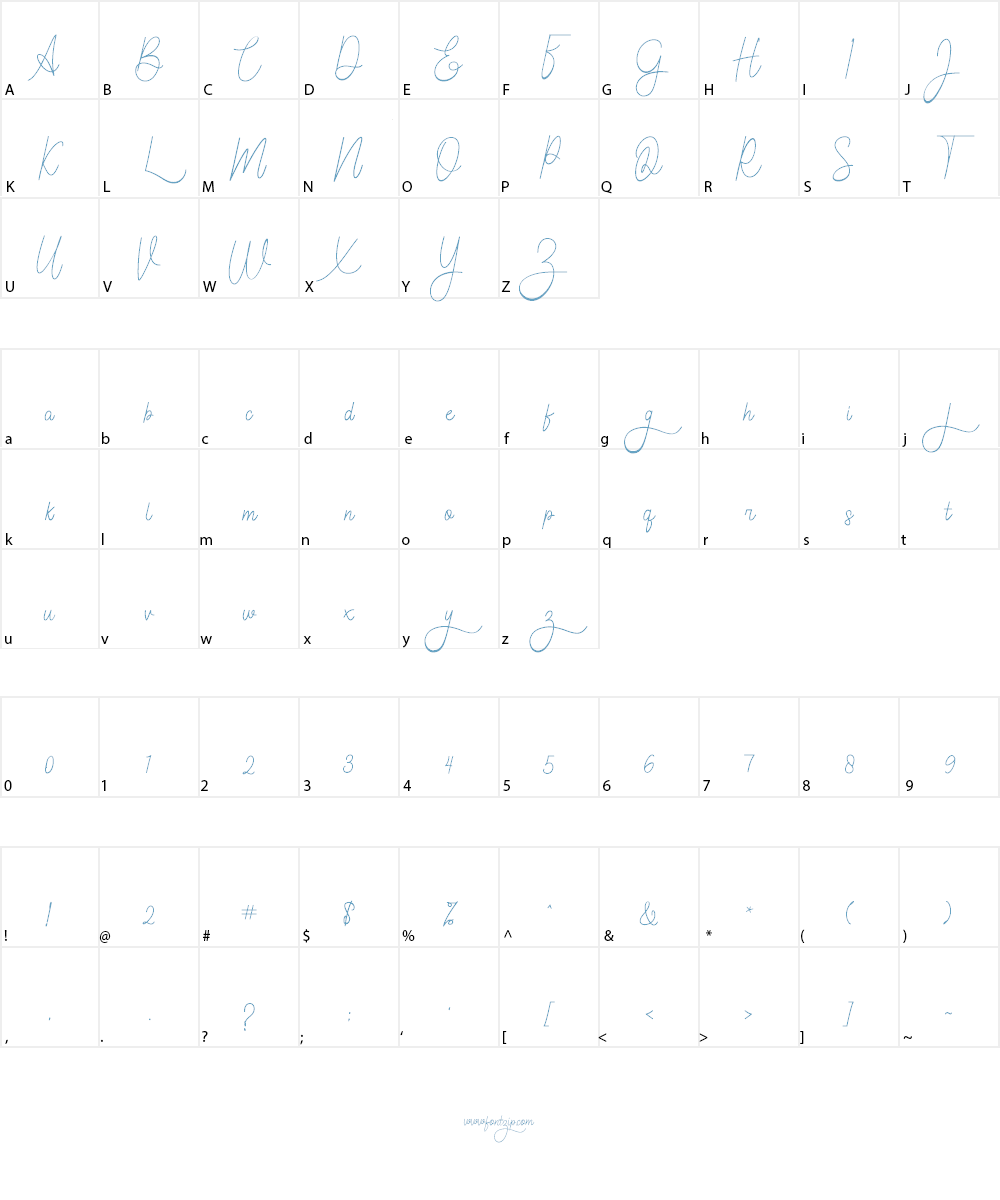
Asgard is a beautiful mono-line font, perfect for logo design, branding, clothing design, signage, posters, wedding invitations and so much more! This font retains my personality within the characters as they were initially based off my own handwriting and later tidied up to create a set of consistent characters. Having that handmade feel and personal touch certainly gives it a hint of authenticity; perfect for any of your upcoming projects